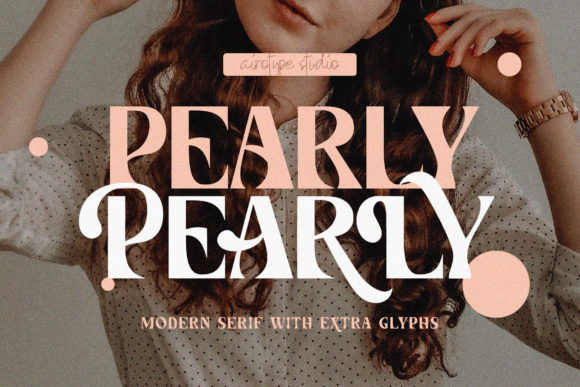
Introducing Pearly Font, the perfect addition to your design toolbox! Crafted by airotype, this modern serif font boasts a thick and solid style that gives your designs an air of sophistication and elegance.
Looking for a font that can add a touch of vintage charm to your project? Pearly has got you covered! With its modern-vintage look, this font is perfect for a wide range of design projects. Whether you're working on branding, logos, crafting, stickers, sublimation, or wedding invitations, Pearly is a versatile font that can elevate your work to the next level.
But what makes Pearly Font truly unique is its ability to evoke emotion and nostalgia. Its timeless style captures the essence of retro design, making it the perfect choice for anyone who wants to tap into the power of nostalgia and evoke warm feelings of the past.